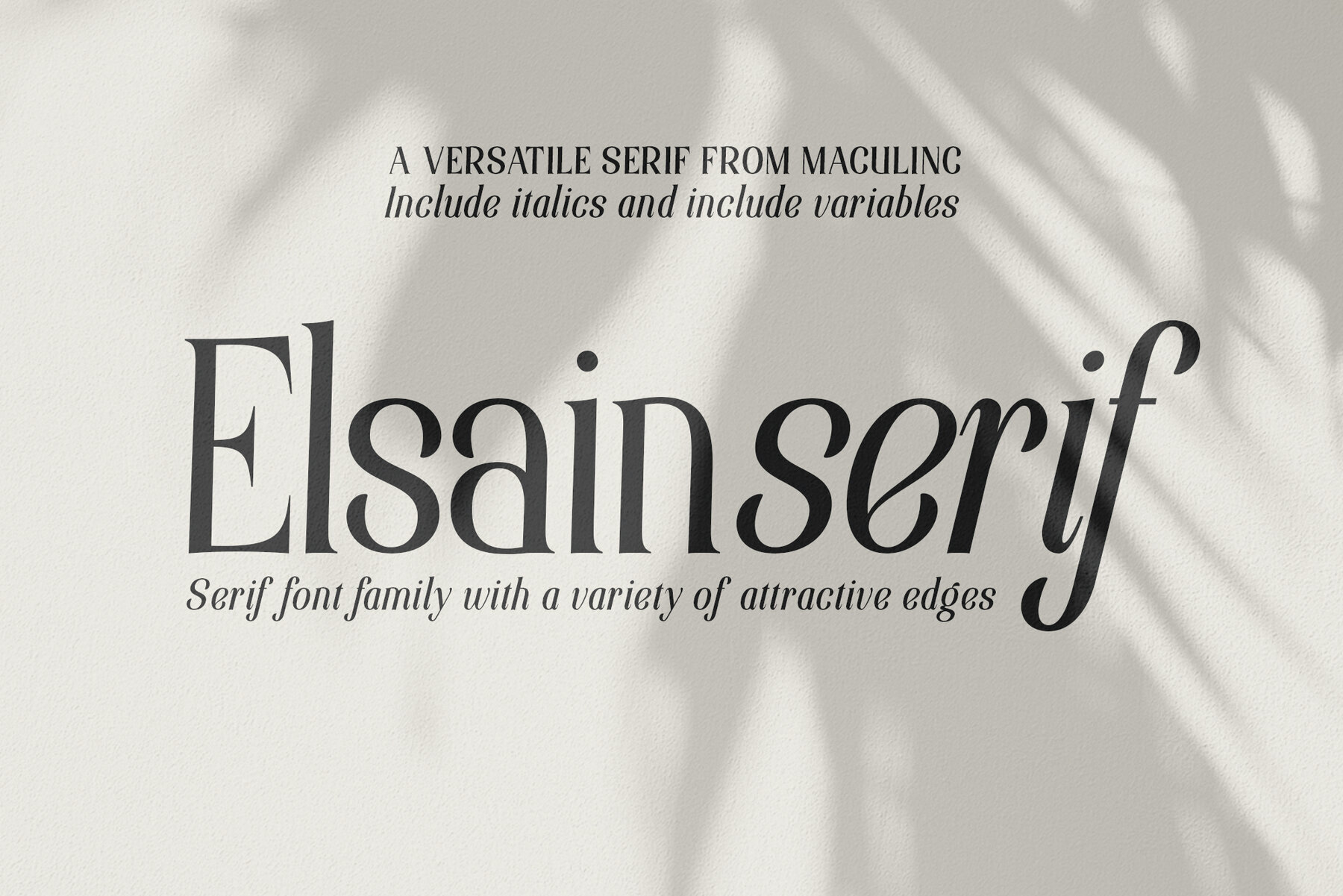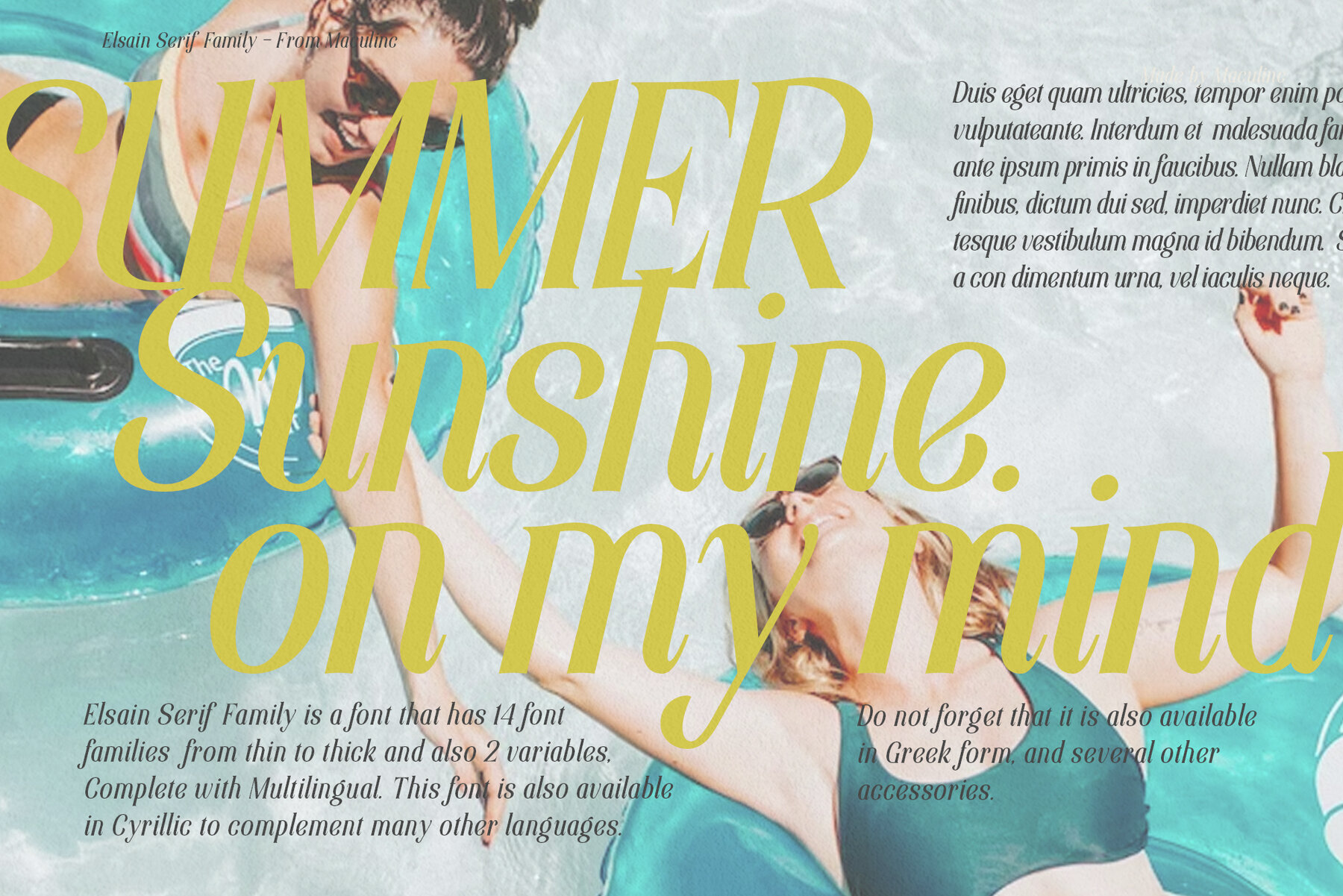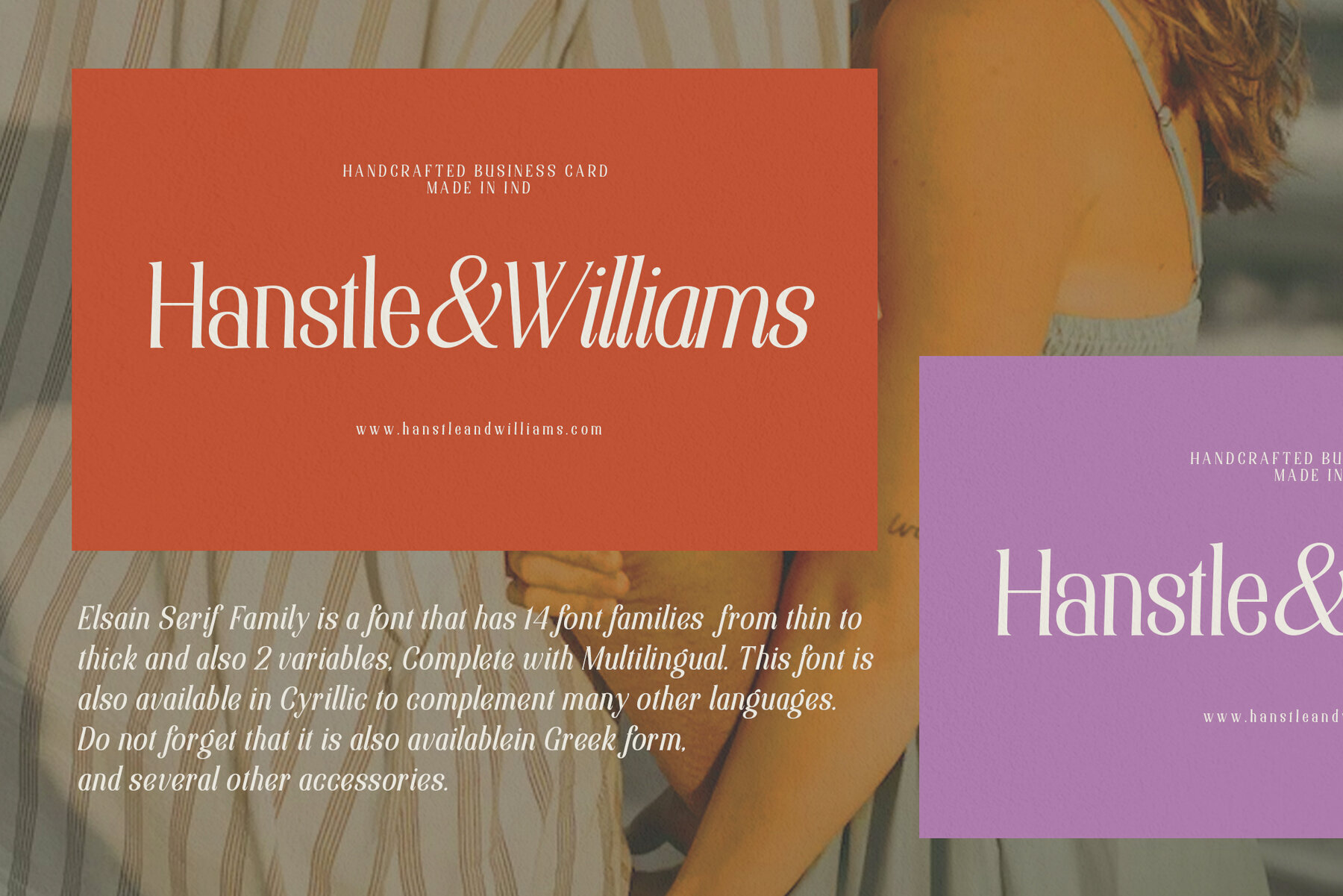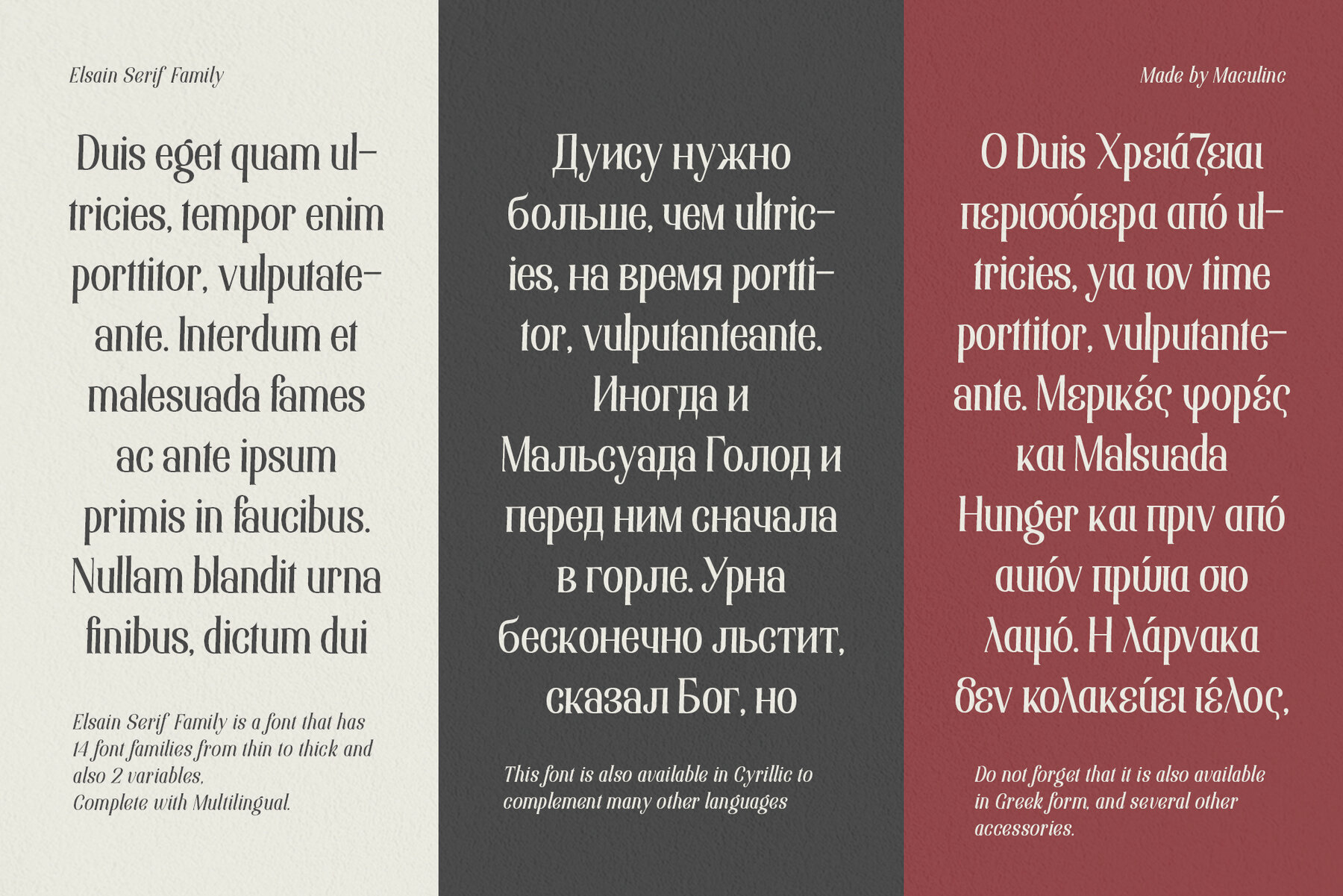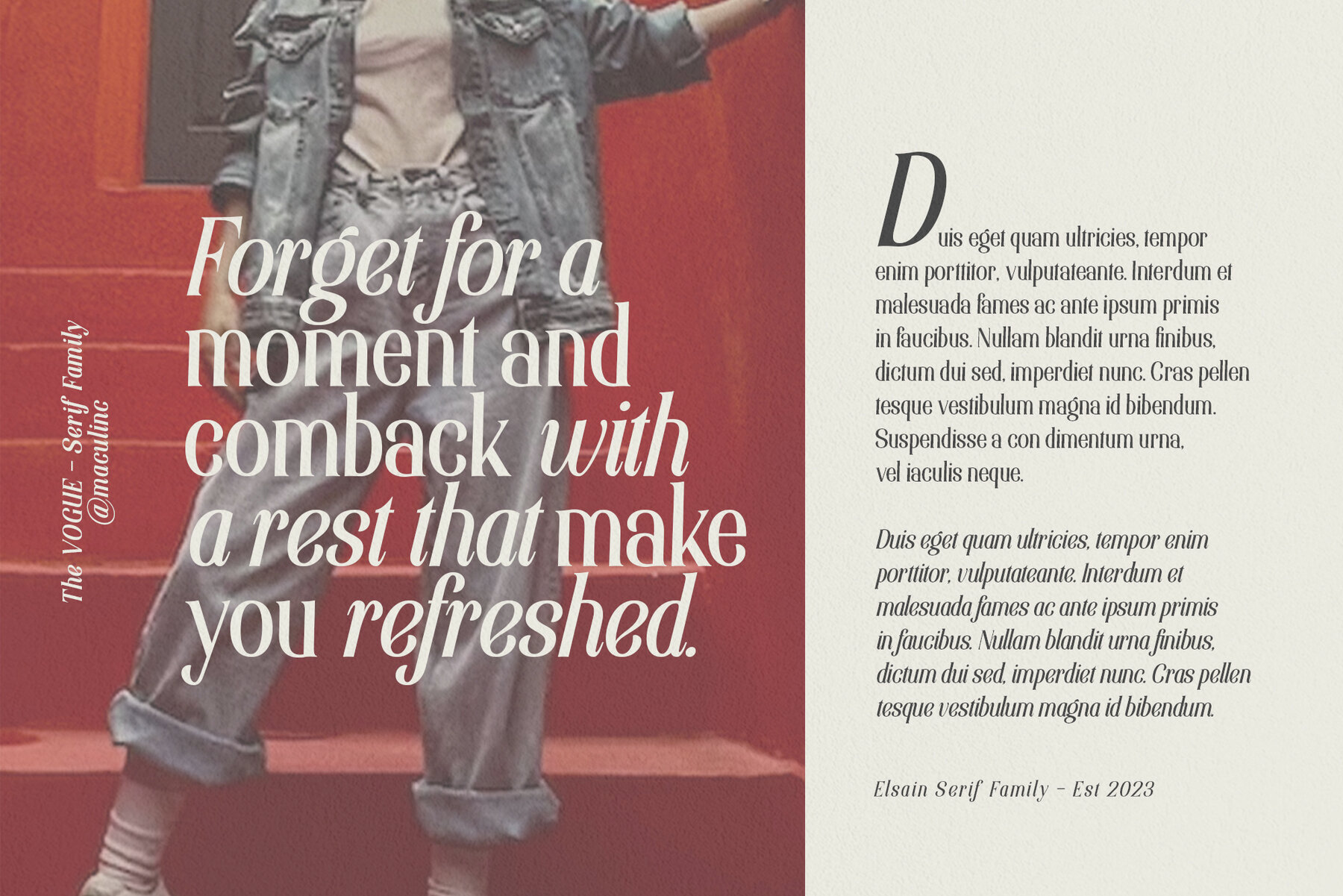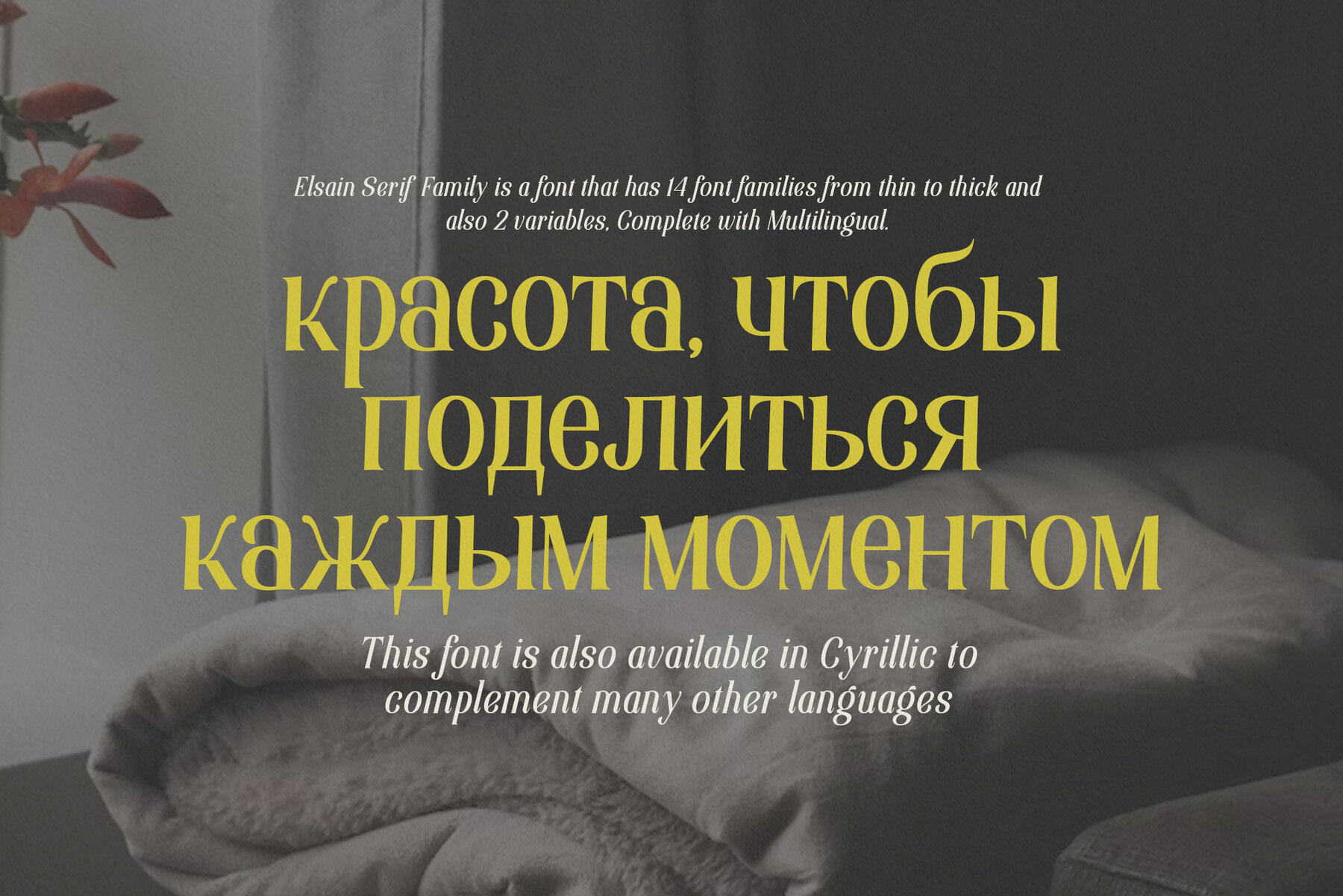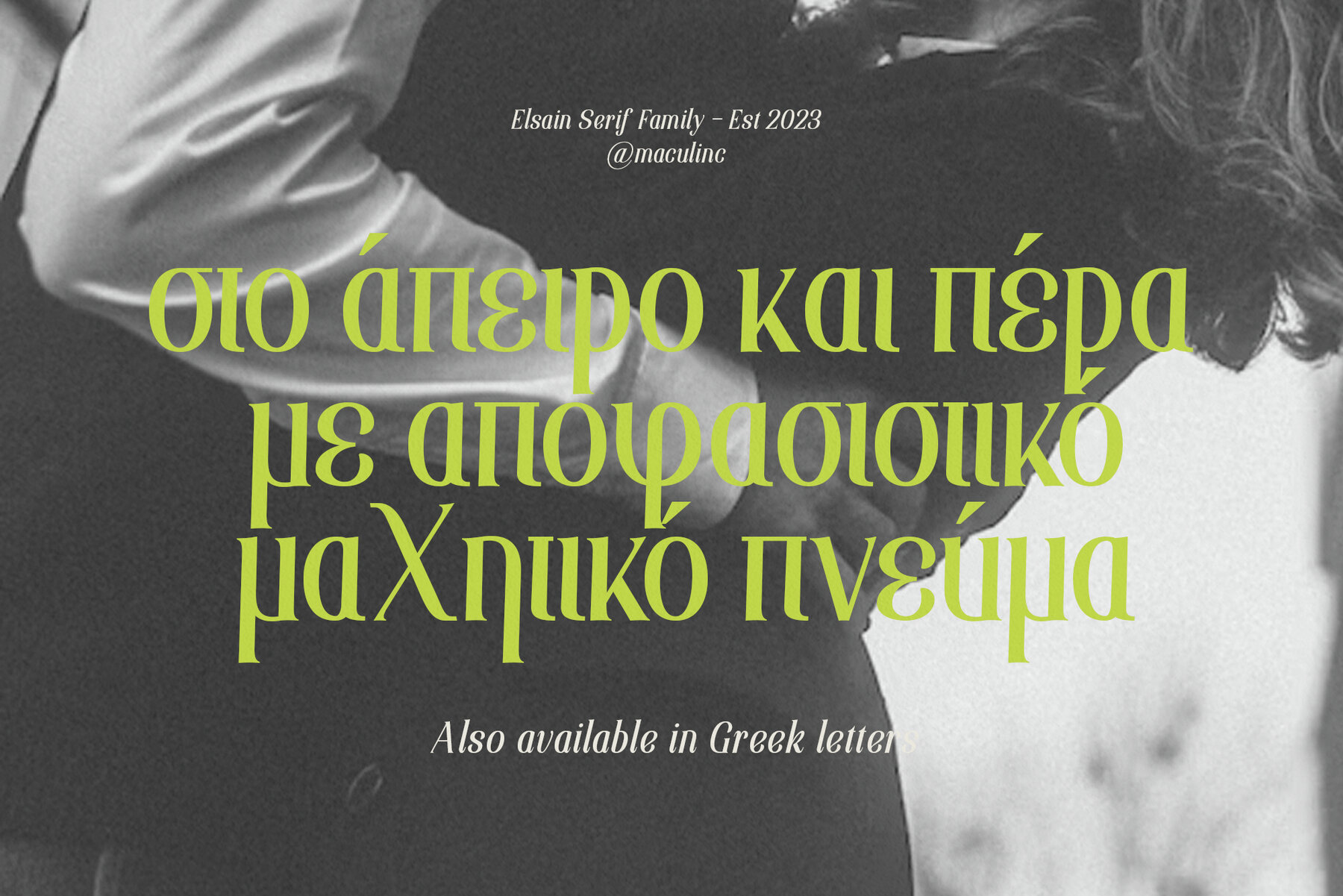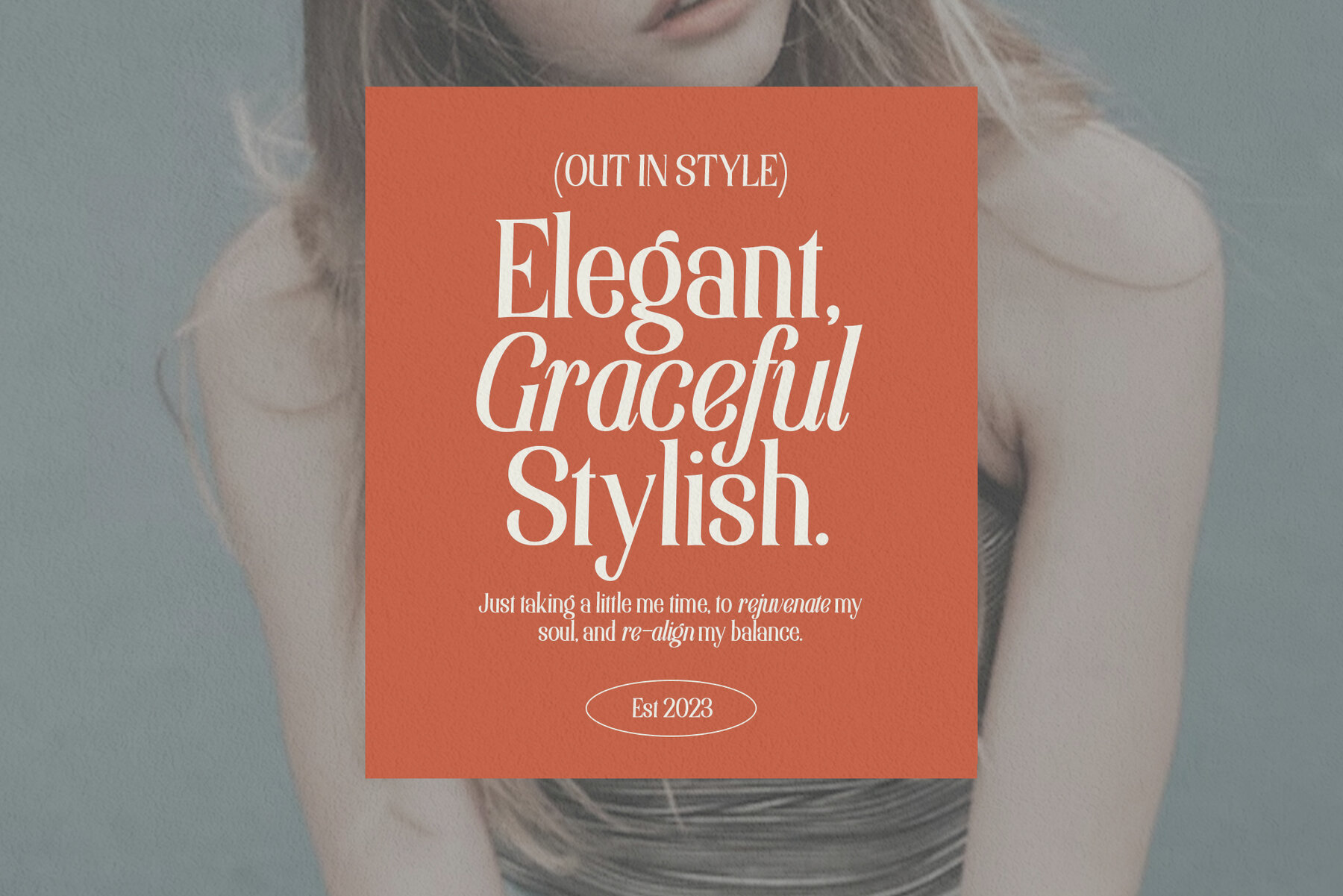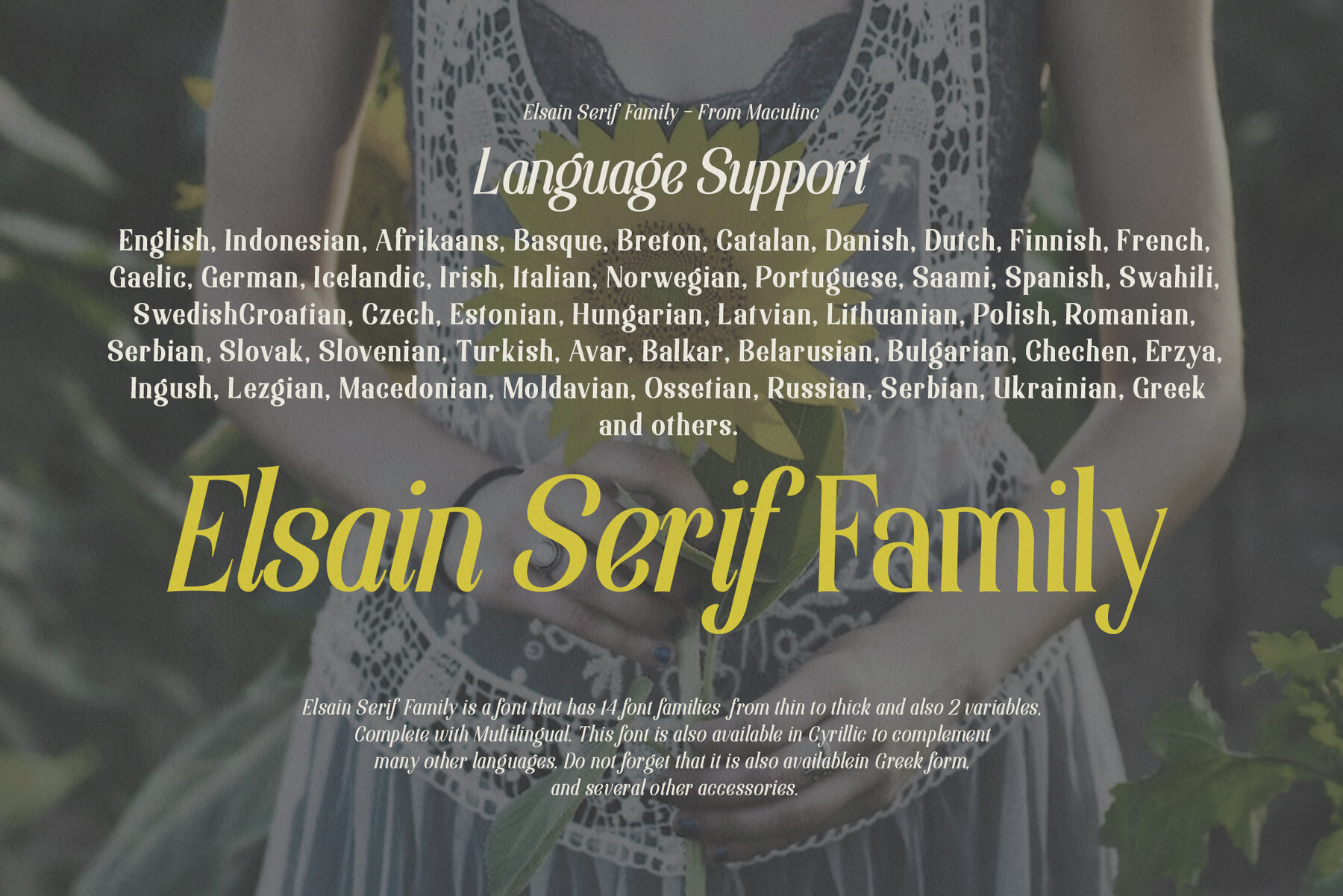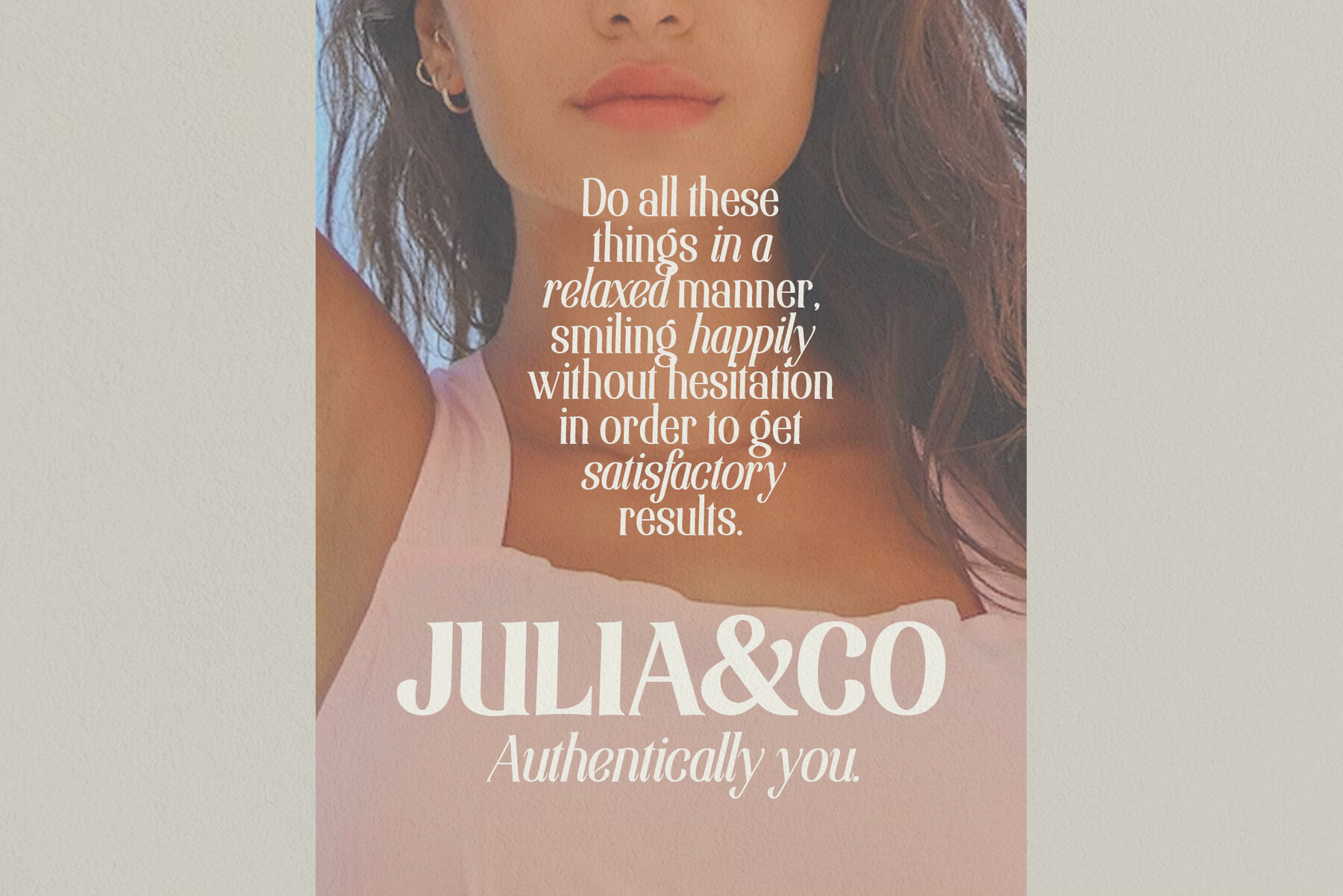
Elsain Font
Introducing Elsain Serif Font Family & Elsain Variable Font, a signature serif font family characterized by its unique edge and corner style. The tight letter spacing enhances the font's personality, making it ideal for a variety of design applications. With variable fonts to make it easier to choose the thickness according to your wishes.
The Elsain Serif Family excels in quote or body copy layouts and works perfectly as a display font for titles, logos, branding, magazines, product packaging, invitations, and more. The font family features 14 styles, ranging from thin to bold, and includes two variable options. Multilingual support includes Cyrillic, Greek, and a number of other languages, making Elsain a truly versatile typeface for global use.